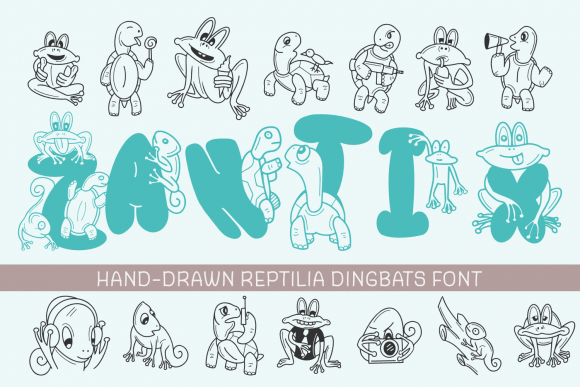
In a world where words sometimes fall short, Zantix Font emerges as a captivating storyteller, a visual virtuoso that breathes life into your creative expressions. This extraordinary dingbats font transcends the boundaries of ordinary typography, inviting you to embark on a journey where imagination meets artistry.
Zantix Font is not merely a collection of symbols; it's a treasure trove of visual wonders, a gateway to a realm where the mundane transforms into the extraordinary. Its intricate designs dance across the page, captivating the eyes and igniting the imagination. With every glyph, Zantix tells a tale, evoking emotions and painting vivid pictures that words alone cannot capture.
Unleash the boundless creativity within you as you delve into the depths of Zantix's vast library. Discover whimsical characters, enchanting ornaments, and captivating icons that will elevate your designs to new heights. Whether you're crafting a captivating book cover, designing an eye-catching poster, or creating a whimsical website, Zantix Font is your trusted companion, guiding you towards typographic excellence.
Zantix Font is more than just a font; it's an experience, a journey into the realm of visual storytelling. Its versatility knows no bounds, bending to your creative will and seamlessly adapting to any project you envision. With Zantix as your ally, you'll craft designs that resonate, designs that speak to the hearts and minds of your audience, leaving an indelible mark on their souls.
Let Zantix Font ignite the spark of creativity within you. Embrace the limitless possibilities it offers, and watch as your designs transform into captivating masterpieces. As you explore the depths of this extraordinary font, you'll discover a world where imagination reigns supreme and where every creation tells a story that words cannot express.